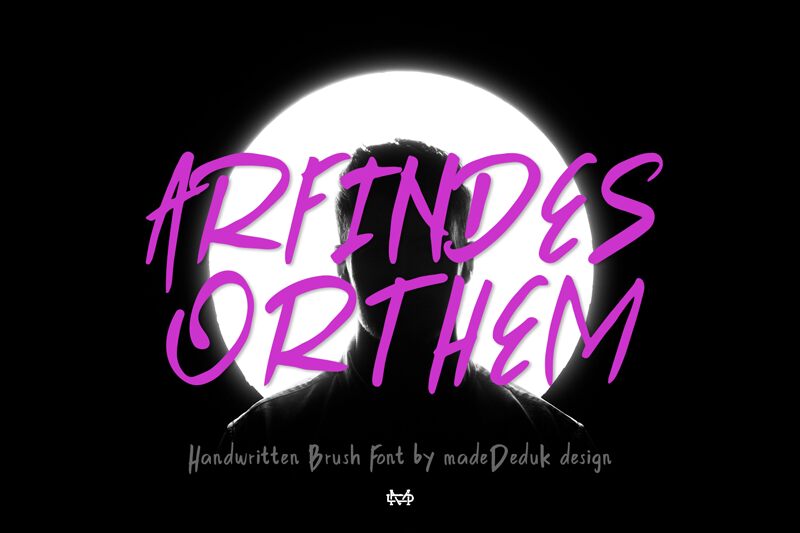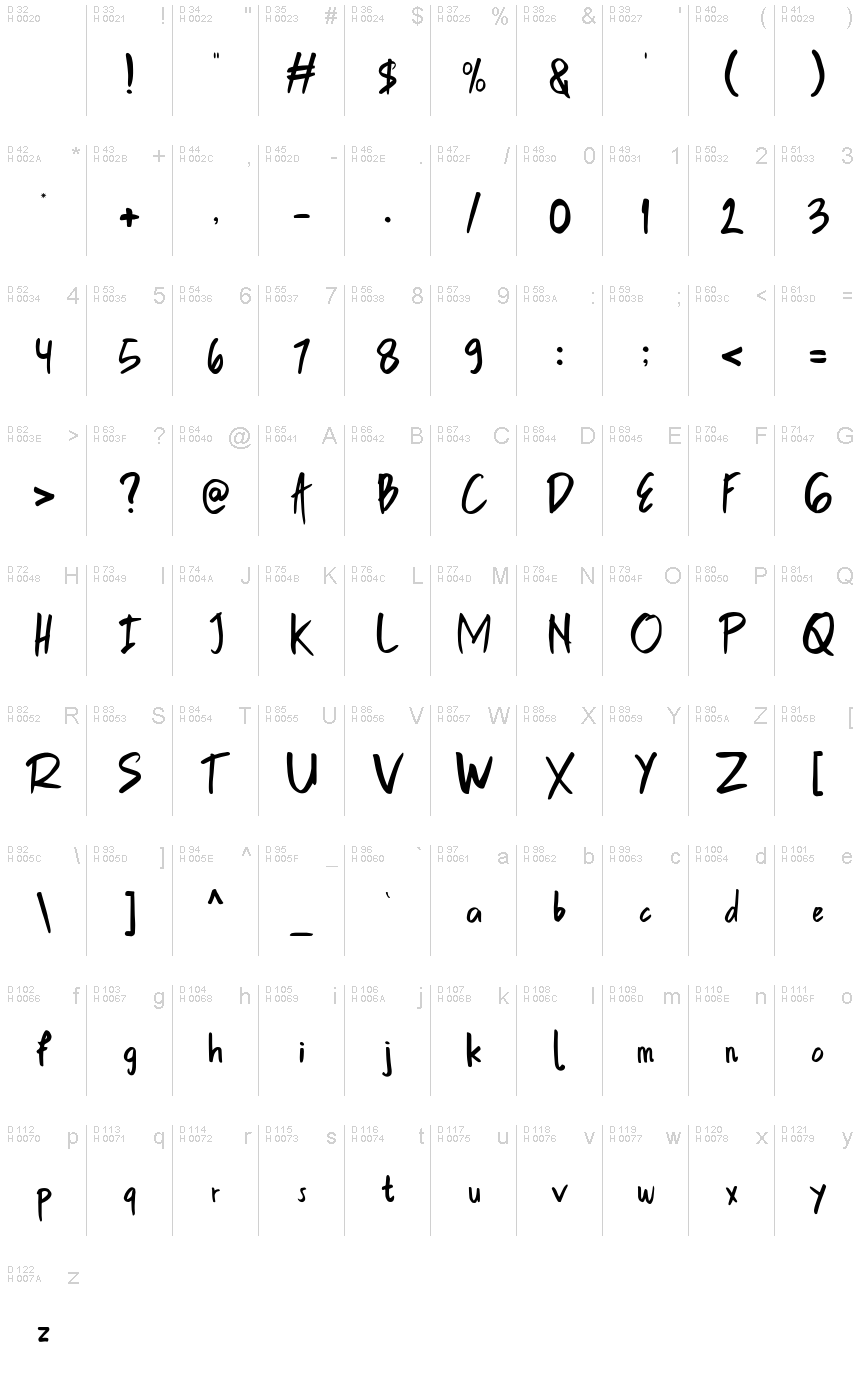
Arfindes Orthem Demo Regular
Arfindes Orthem by madeDeduk is a captivating handwritten font that exudes a sense of effortless elegance and raw expression. The flowing, organic strokes and playful ligatures create a dynamic and vibrant aesthetic, inviting the viewer to engage with the text. This font's unique character breathes life into any design, seamlessly blending modern sensibilities with a touch of vintage charm.
Arfindes Orthem's versatility allows it to shine in a wide range of applications, from editorial layouts and branding to product packaging and social media content. Its expressive qualities make it an ideal choice for projects seeking to convey a personal, handcrafted touch, whether it's a captivating logo, a heartfelt greeting card, or a memorable event invitation.